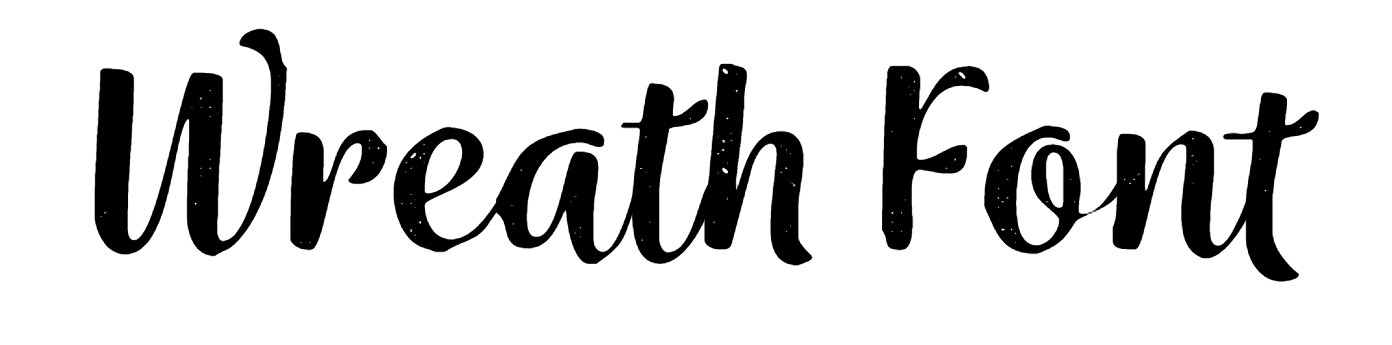
Wreath
Wreath is a fancy font made by Jeremy Dooley (2016). Bold and full of character, it's built to stand out rather than blend in. You can download it for free and test it with your own words in the preview above.
- Designer: Jeremy Dooley
- Weight: SemiBold (600)
- Glyphs: 645
- OpenType features: Ligatures (including optional ones), contextual alternates, swashes, 6 stylistic sets and old-style numbers
- Extra characters: 11 copy-and-paste alternates (Private Use Area)
Wreath covers the full alphabet in upper and lowercase, plus all ten numbers, so you can set names, dates and prices without switching fonts. Common punctuation such as &, !, ? and @ is included as well. It also has the accented letters you need for Spanish, French, German, Portuguese and Italian. Of its 645 glyphs, about 271 are not on your keyboard at all. That is where the alternates explained below live.
Designers usually reach for fonts like Wreath when they're making posters, logos and eye-catching headlines. Use it for one standout word or headline and let simpler fonts handle the rest.